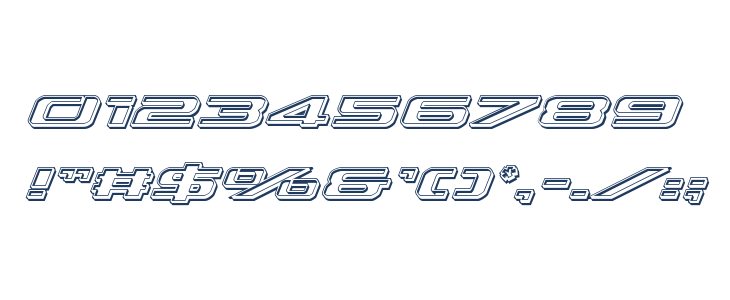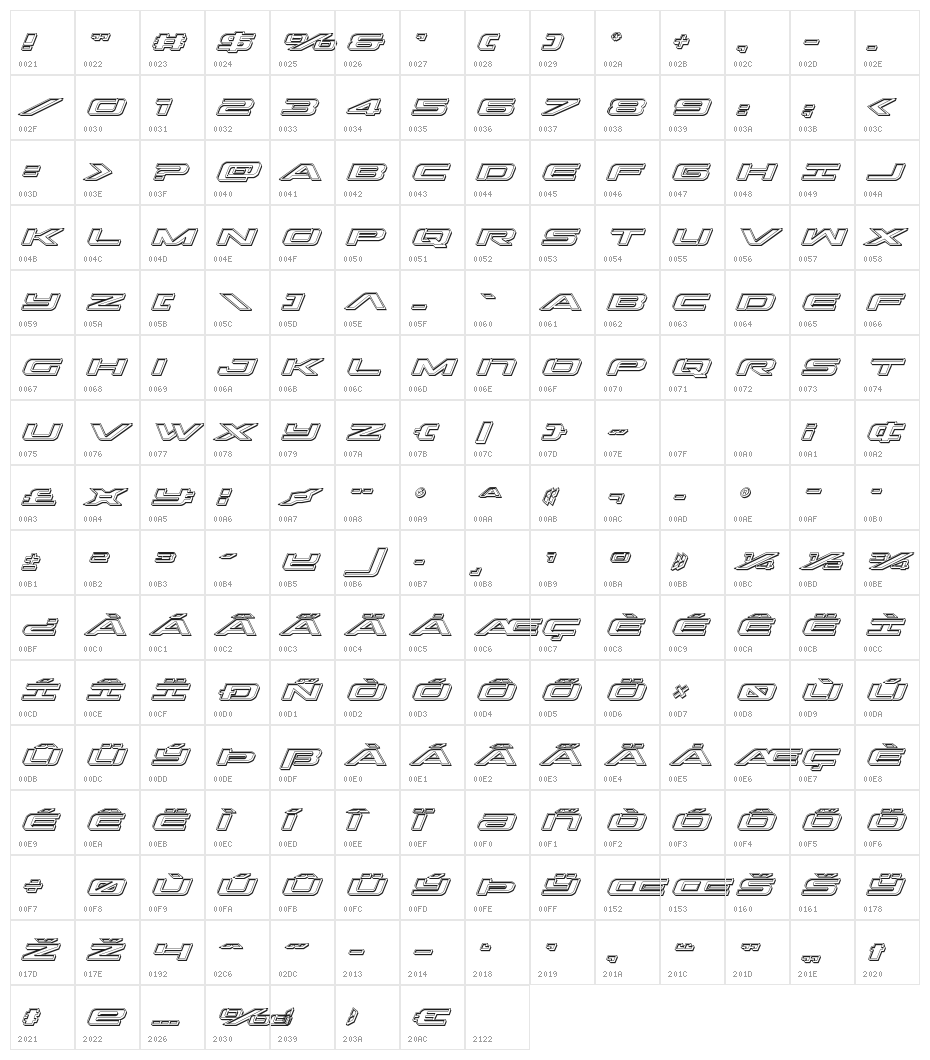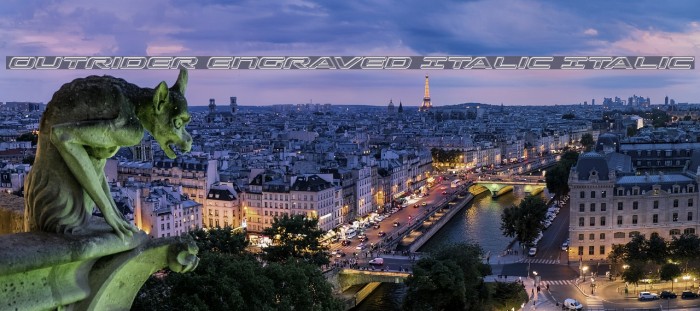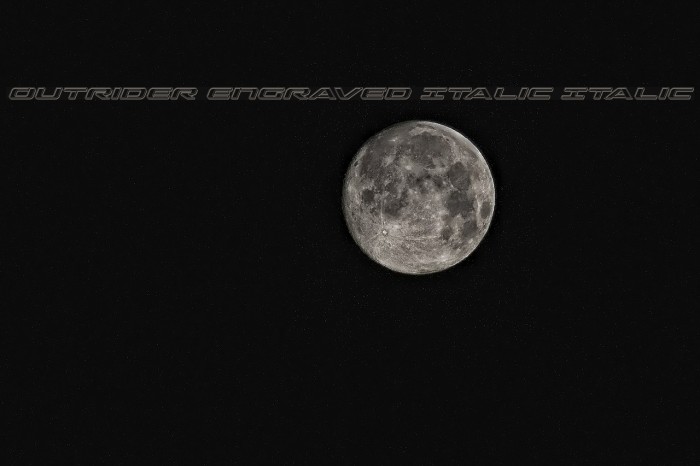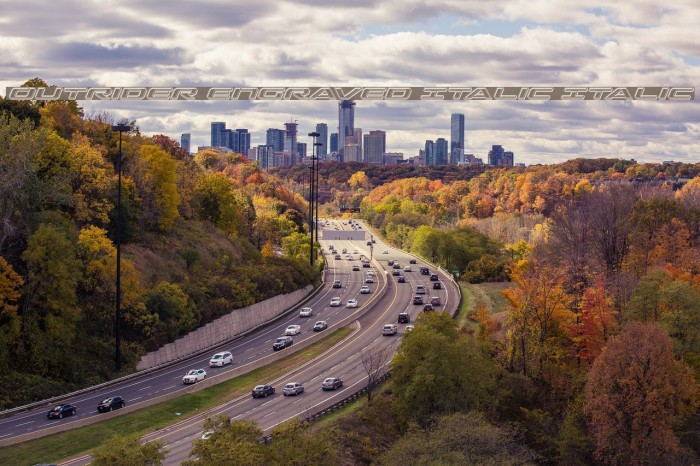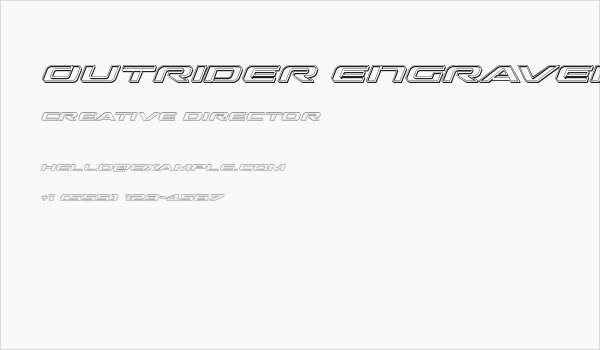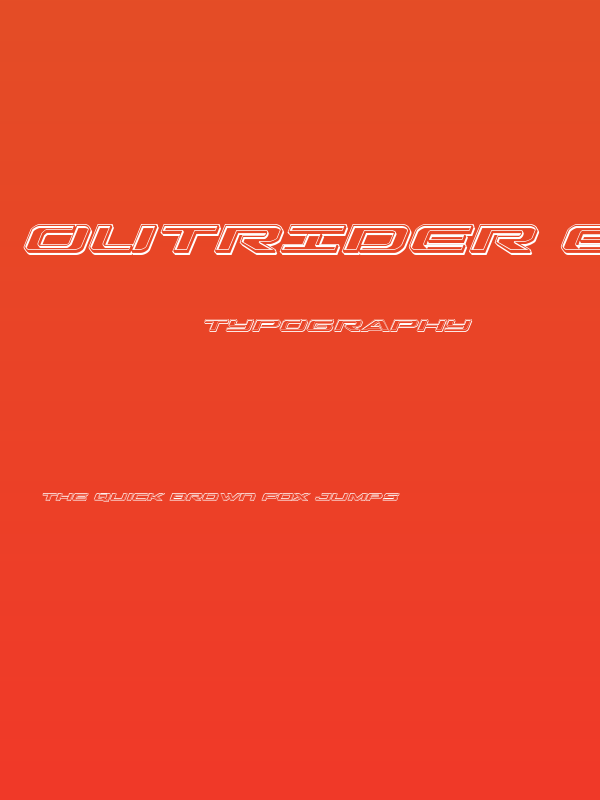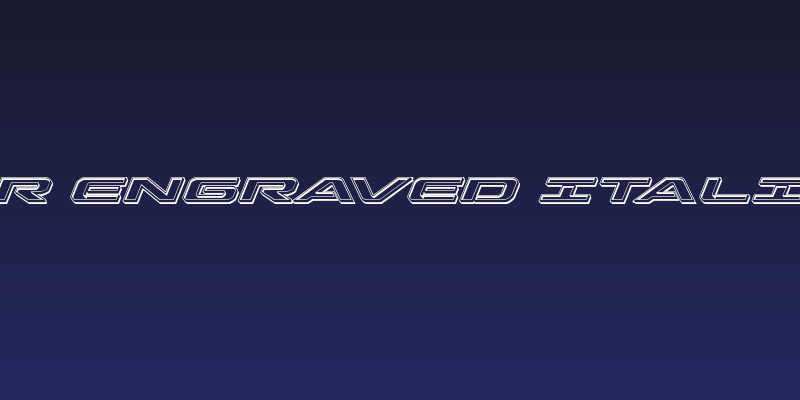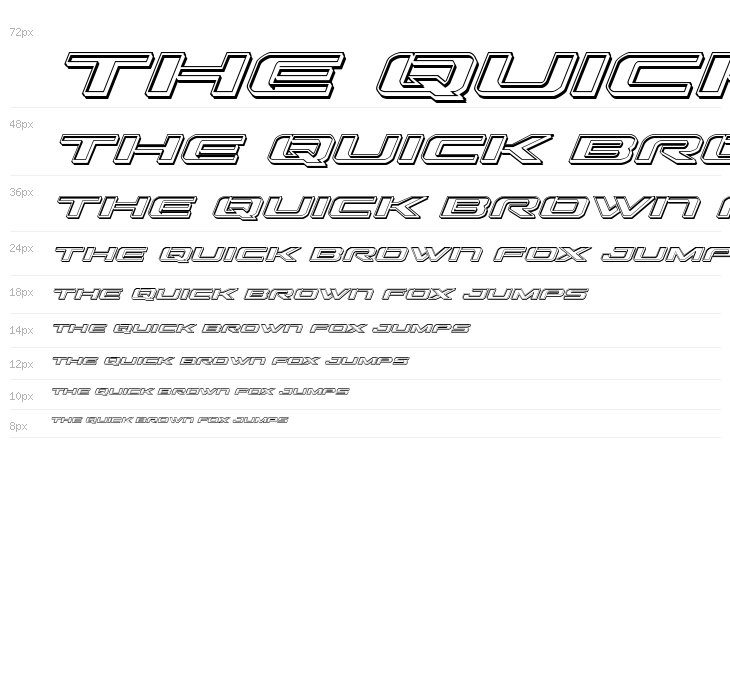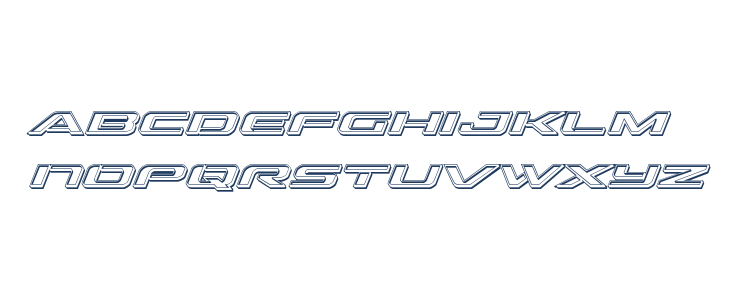
Outrider Engraved Italic Italic Font
Outrider Engraved Italic Italic Description
This font features a bold, futuristic design with a distinct engraved effect. The italicized style adds a dynamic and forward-leaning appearance, enhancing its modern aesthetic. Each character is outlined, creating a layered look that emphasizes depth and dimension. The uppercase and lowercase letters maintain a consistent style, with sharp angles and clean lines that convey a sense of speed and precision. The numerals and special characters are designed to match the overall theme, ensuring uniformity across all elements.